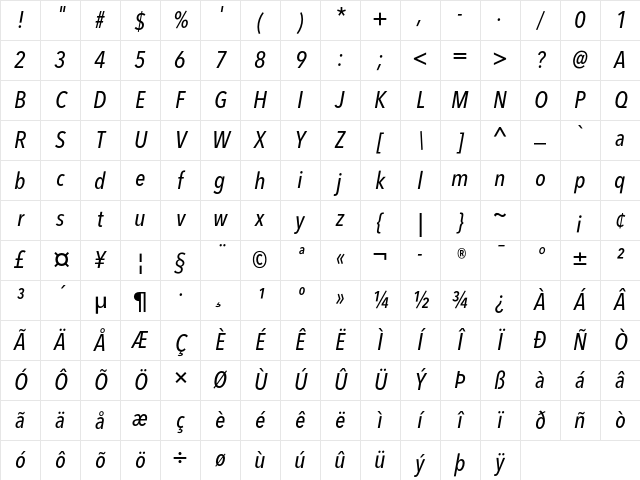
Avenir Next LT Pro Medium Condensed Italic Free Font
Avenir Next LT Pro Medium Condensed Italic
Style: Medium Condensed Italic
Foundry: Linotype Library GmbH
Designer: Adrian Frutiger and Akira Kobayashi
Design Context for Avenir Next LT Pro
Avenir Next LT Pro is a composed and adaptable typeface that performs quietly and consistently across a wide range of design contexts. The slanted form adds forward momentum and visual energy. Its slender proportions lend an understated elegance to any composition. Its narrow stance lets it pack a punch even in space-constrained designs.
Pro Tip: Use Avenir Next LT Pro for emphasis, pull quotes, and subheadings where its slanted energy can add rhythm to the layout.